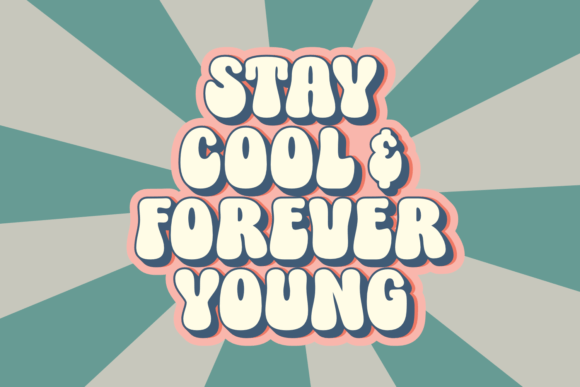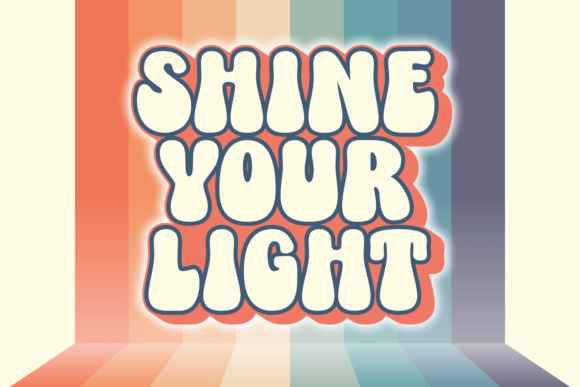
Introduction to Just Retro Font
Remember that moment when you’re working on a creative project, and you just can’t seem to find the perfect font to match your vision? You scroll through page after page of fonts, but nothing seems to capture the essence of your design. Well, we’ve got some exciting news for you – we’ve discovered a font that’s sure to bring a smile to your face and a touch of joy to your next creative project: the Just Retro Font.
This adorable, chunky display font is inspired by the nostalgia of retro typography, and it’s the perfect addition to any design. Whether you’re working on a free download or a high-quality design resource, the Just Retro Font is sure to make your project stand out. With its transparent background and high-quality design, you can be sure that your work will shine.
Key Features of Just Retro Font
- High-quality design resource perfect for creative projects, offering a unique and nostalgic feel.
- Includes a transparent background, allowing for easy customization and integration with any design.
- Features a bold and eye-catching design, ideal for use in headings, titles, and other prominent text elements.
- Perfect for designers and artists looking for a high-quality, retro-style font to enhance their creative project.
Honest Review: Just Retro Font
I recently came across the Just Retro Font, and I must say, it’s a great addition to any creative project. As a designer, I’m always on the lookout for high-quality fonts that can elevate my designs and make them stand out.
The font comes in a variety of styles and weights, which is great for creating a cohesive look across your designs. Here are some of the features I love:
- Various styles and weights to suit your design needs
⚠️ One thing to note is that the font may not be suitable for all types of projects. If you’re looking for a font with a more modern or sleek feel, you may want to consider other options. However, for retro-inspired designs, the Just Retro Font is a great choice.
Overall, I’m impressed with the Just Retro Font, and I would definitely recommend it to fellow designers. It’s a great addition to any design resource library, and it’s sure to help you create some amazing designs.
The Just Retro Font is perfect for a wide range of creative projects, including social media graphics, posters, flyers, presentations, and documents. It’s also a great resource for designers and artists looking for a unique and eye-catching font to add to their design arsenal.